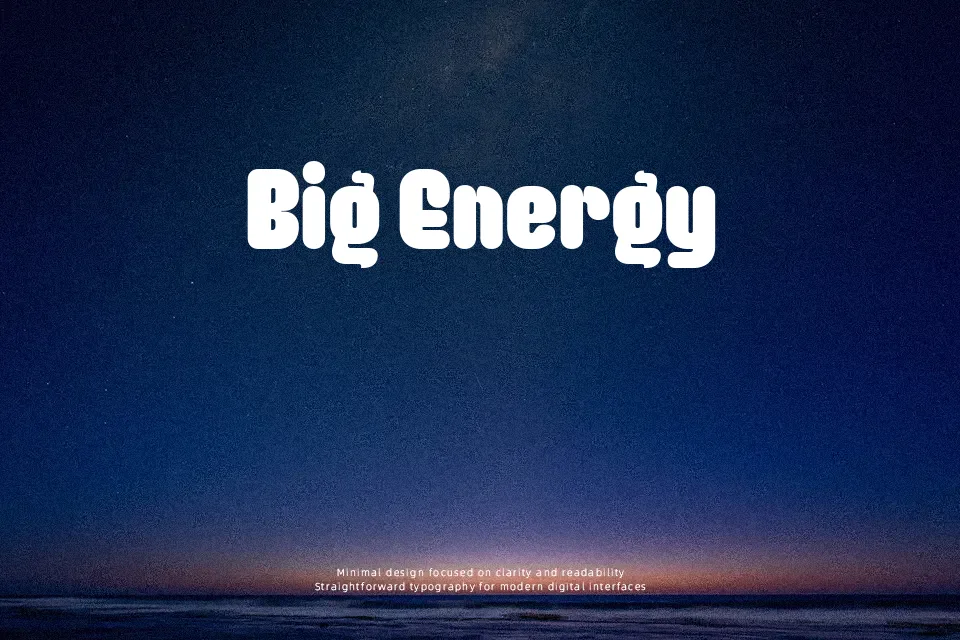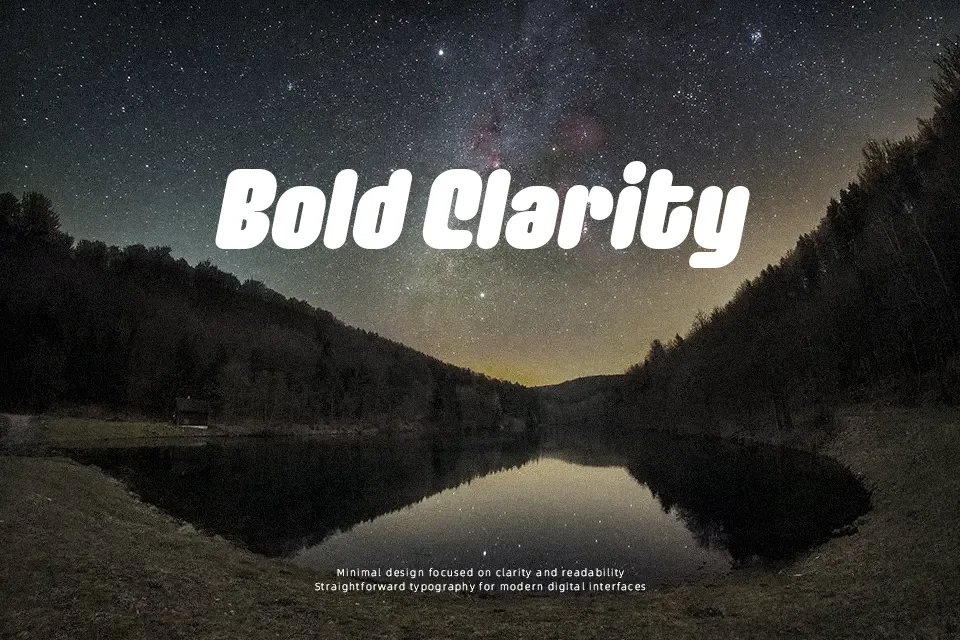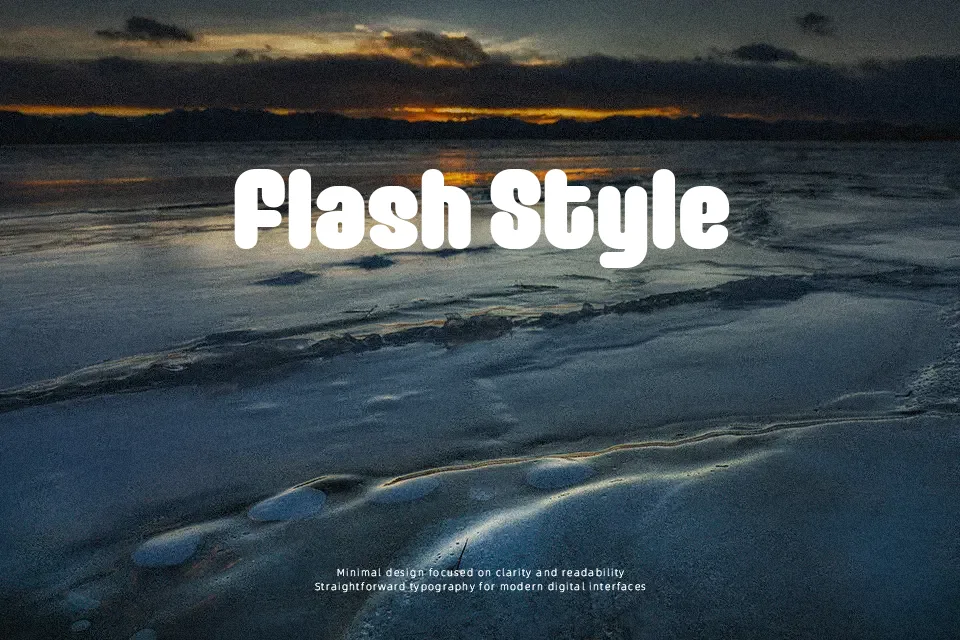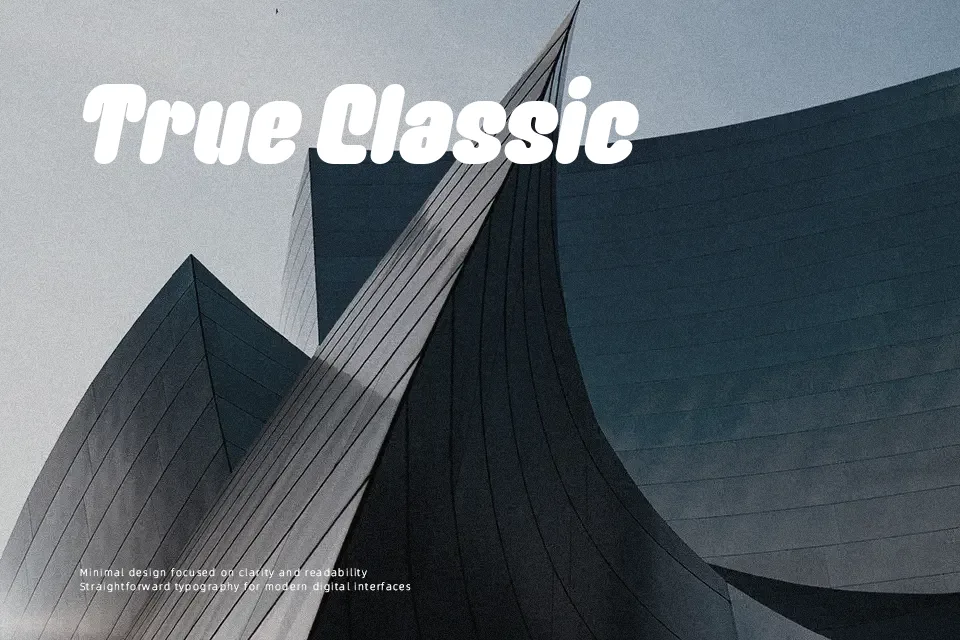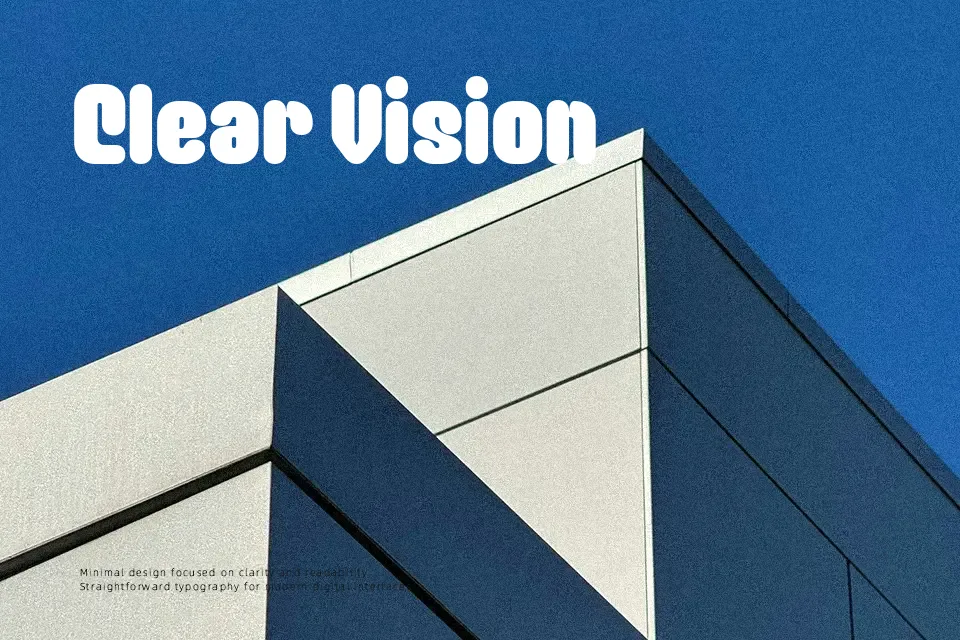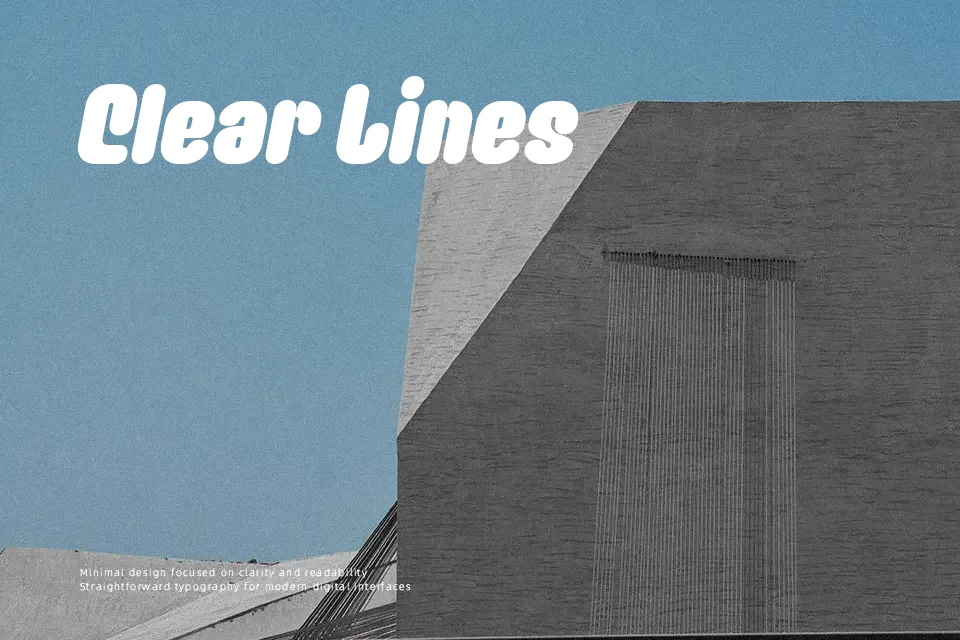
Aenos Font
Aenos carries a confident retro energy through its condensed, extra-bold structure and uniformly thick strokes with minimal contrast. The letterforms are tightly spaced with rounded geometric shapes that feel simultaneously vintage and contemporary — a groovy aesthetic that suits editorial headers, album packaging, and music-event posters. Two weights ship in the demo release: Regular and Italic, both capped at 291 glyphs covering ISO Latin 1. Where it earns its keep is at large display sizes — set it small and legibility starts to suffer, making it a poor candidate for body copy or dense informational layouts. Designers wanting retro flair without heavy customization will find it dependable for short-burst display work; those needing a workhorse across mixed typographic hierarchies should look elsewhere.
Best For:- Music album covers and concert poster headlines
– Retro-themed branding and logo lockups
– Magazine section headers and editorial feature titles
– Apparel and merchandise graphic text
Not Ideal For:- Body text or long-form reading at small sizes
– Corporate or formal document design
– Multilingual projects requiring extended character sets
Perfect for advertising, branding, and fashion, with a bold and condensed style.